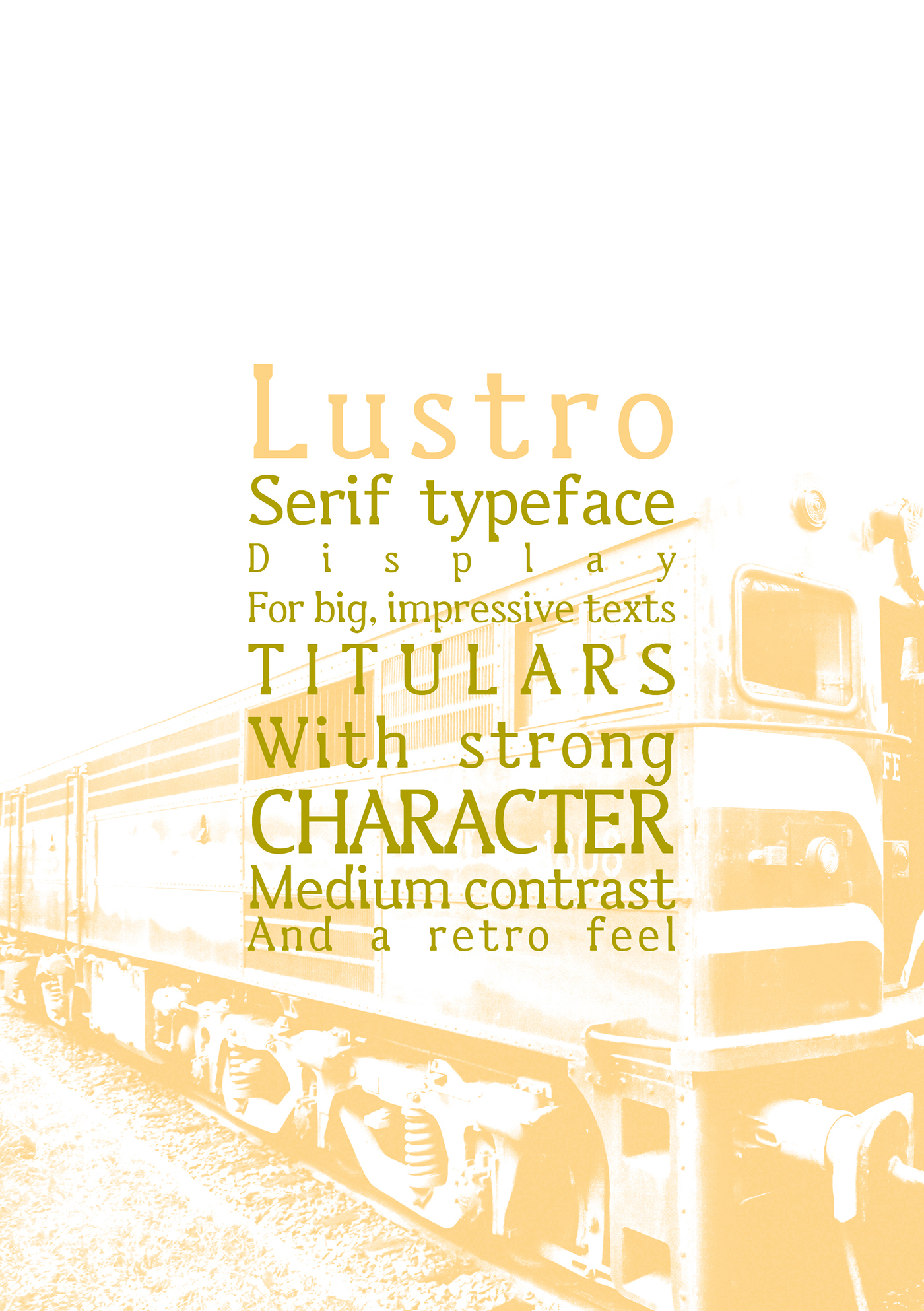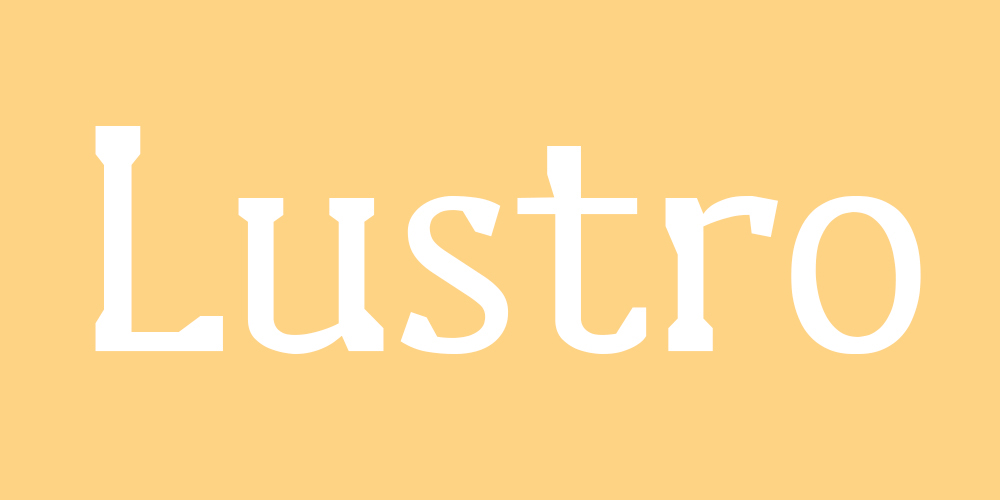
Lustro | Free Font
Lustro Free Font designed and shared for free by Raül Santín
LUSTRO is a serif typeface Display, with a strong character and a slightly retro, classic feel, but stylized and readable.